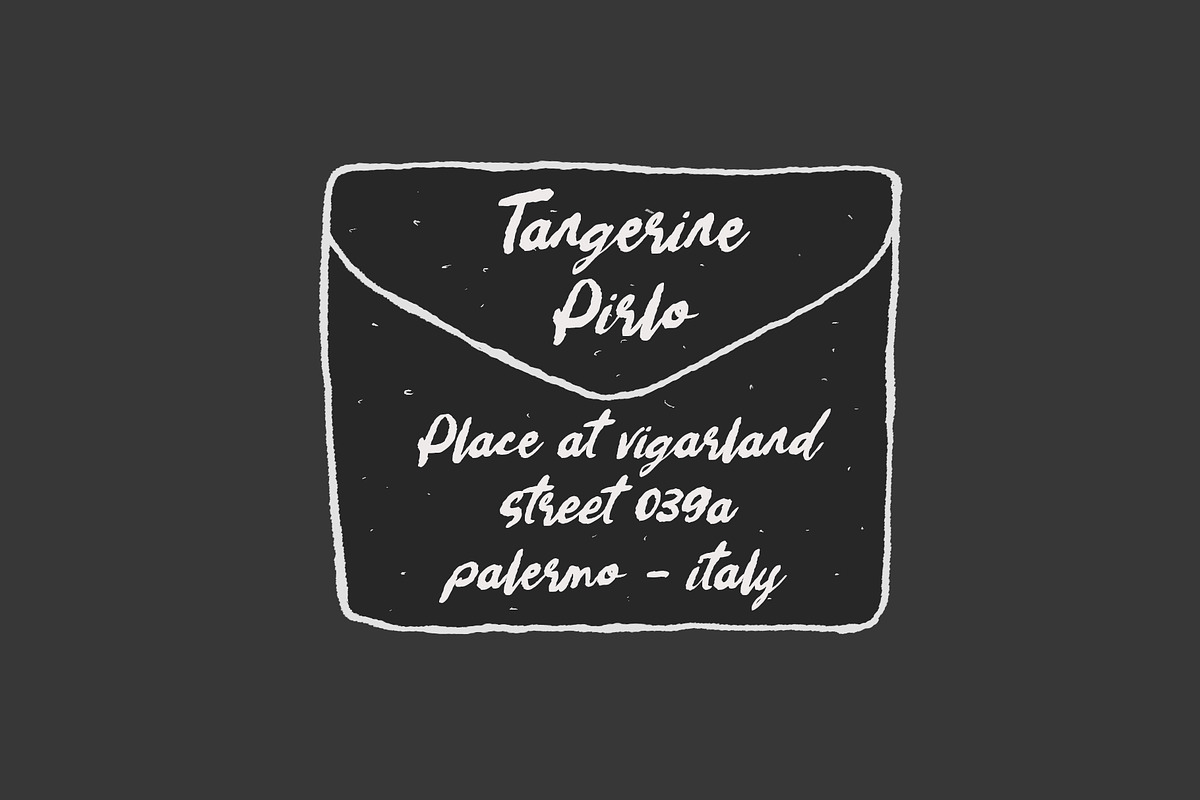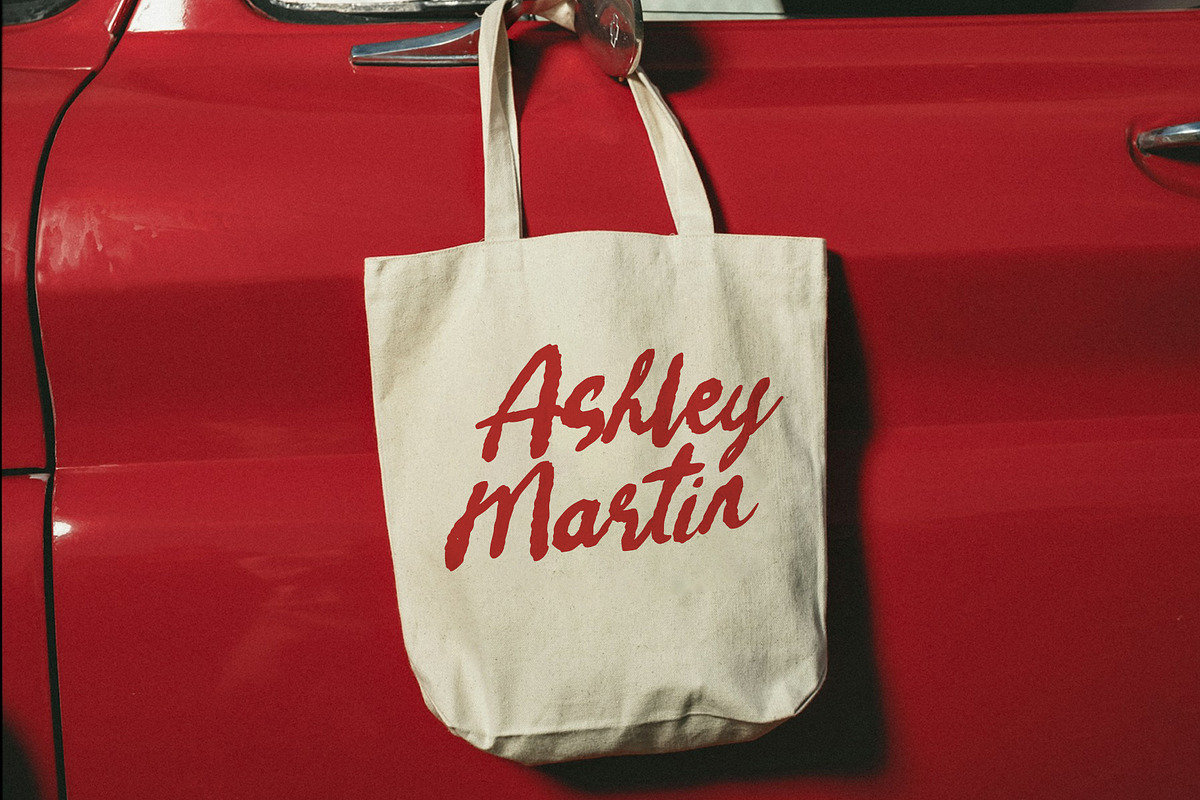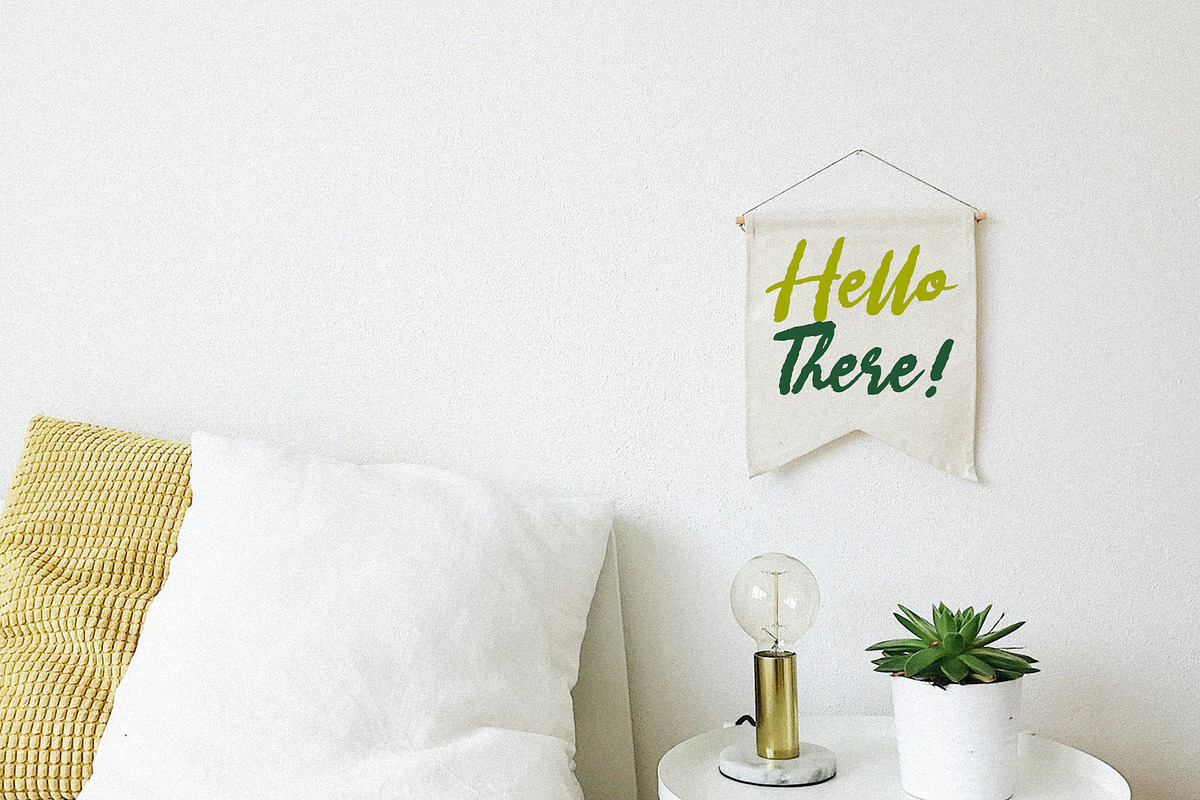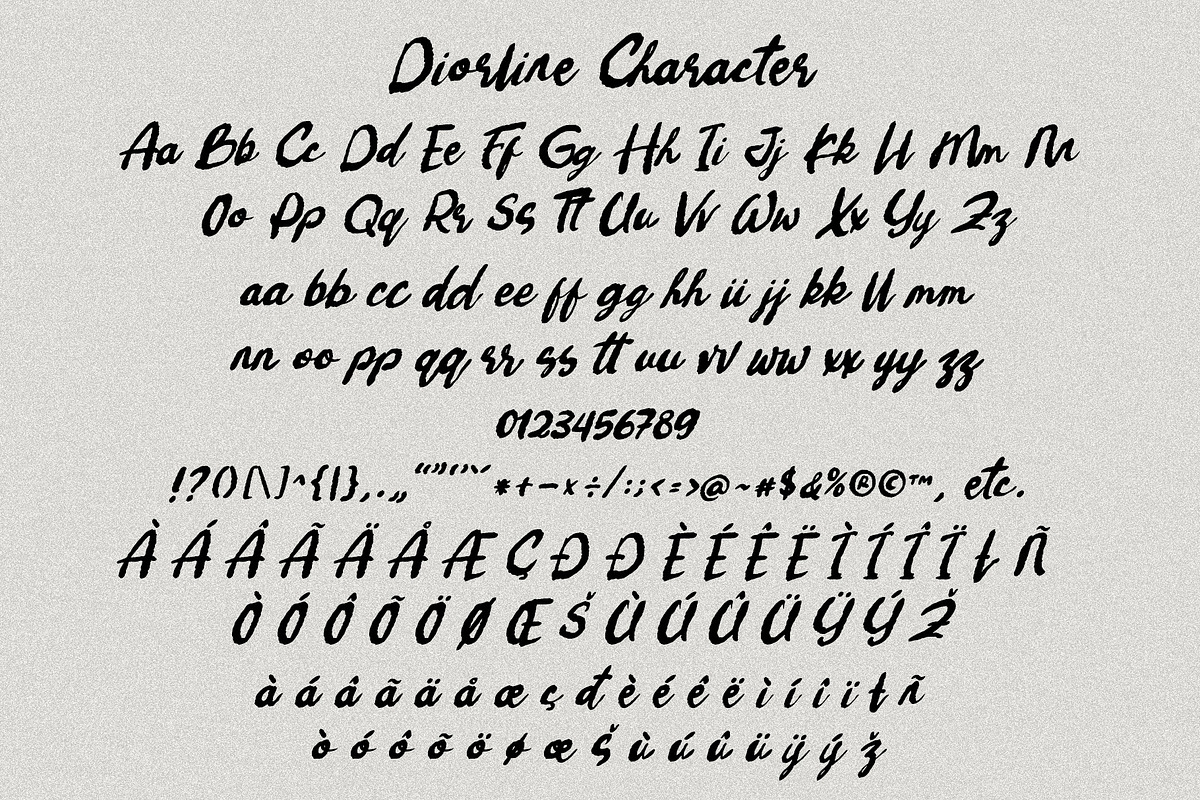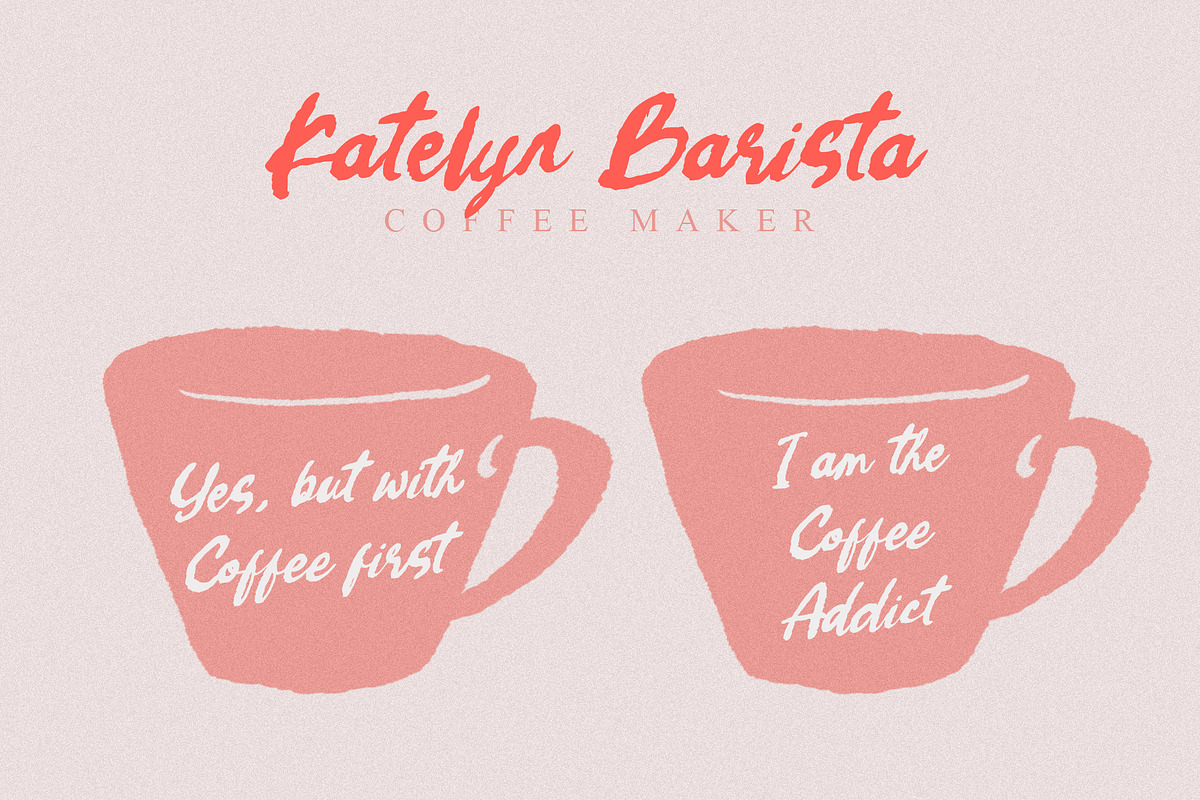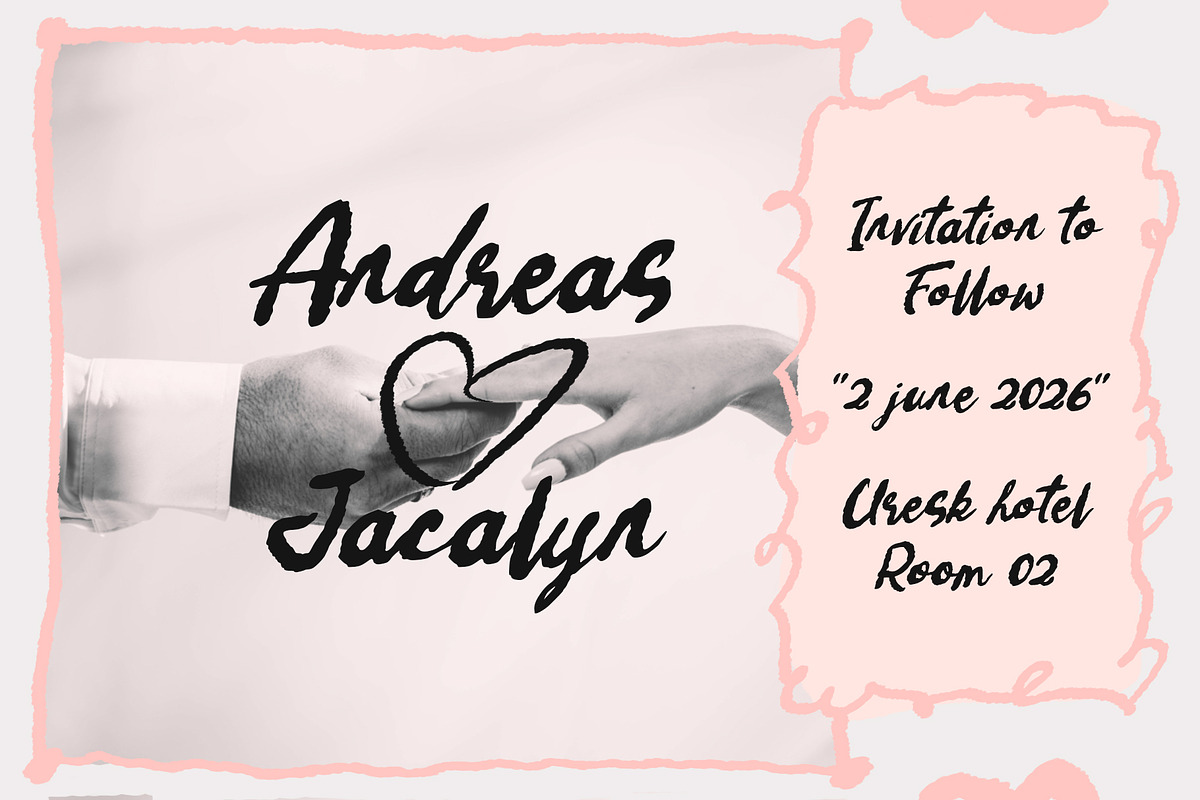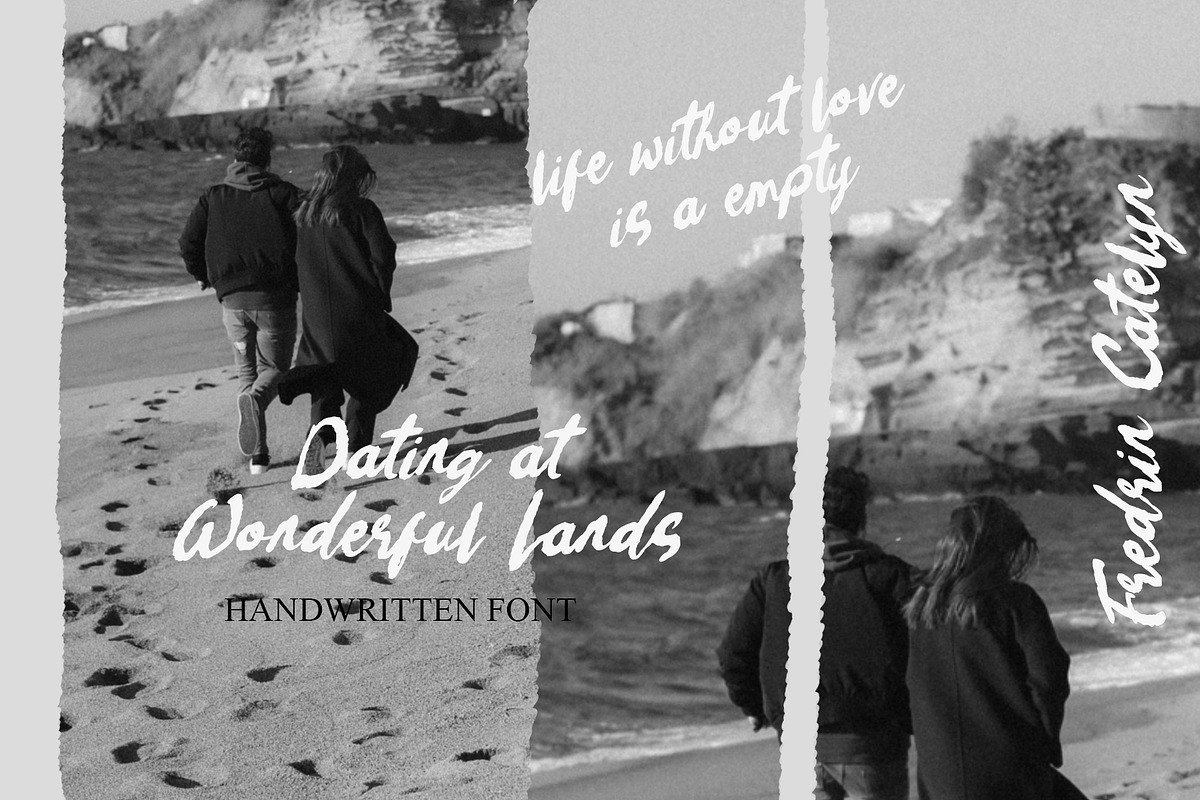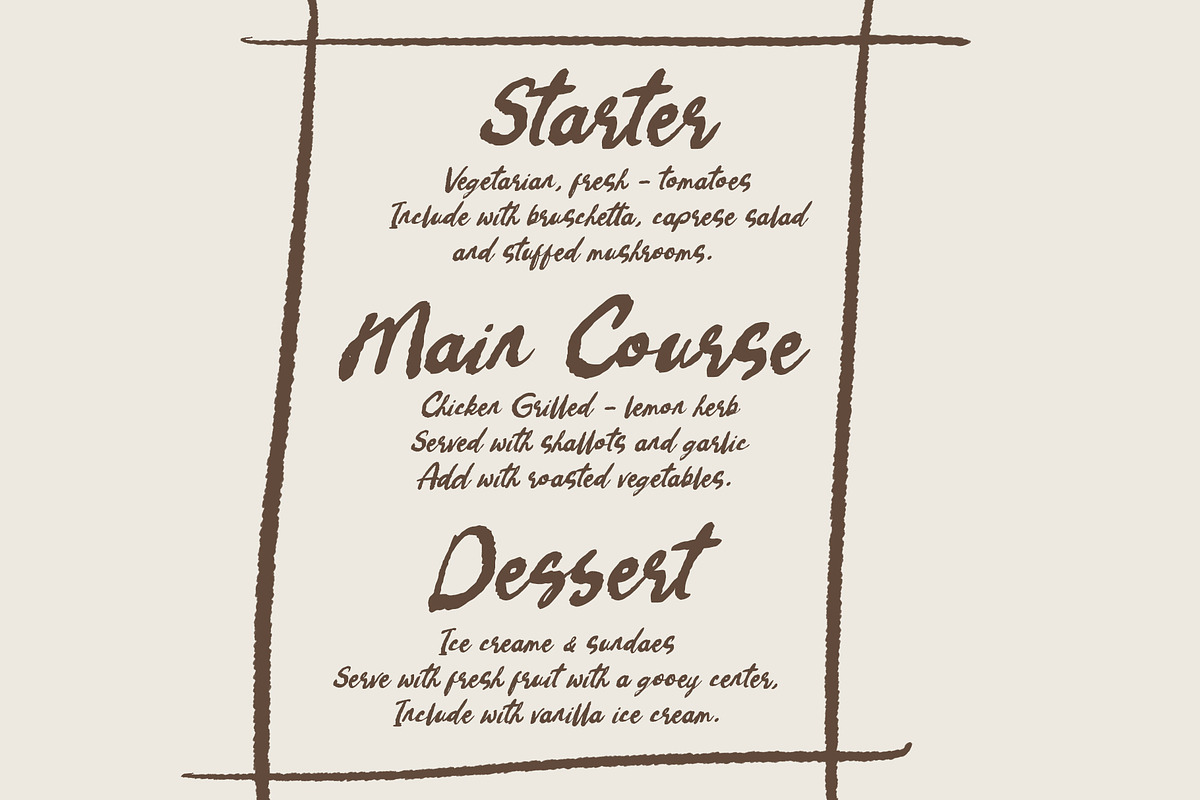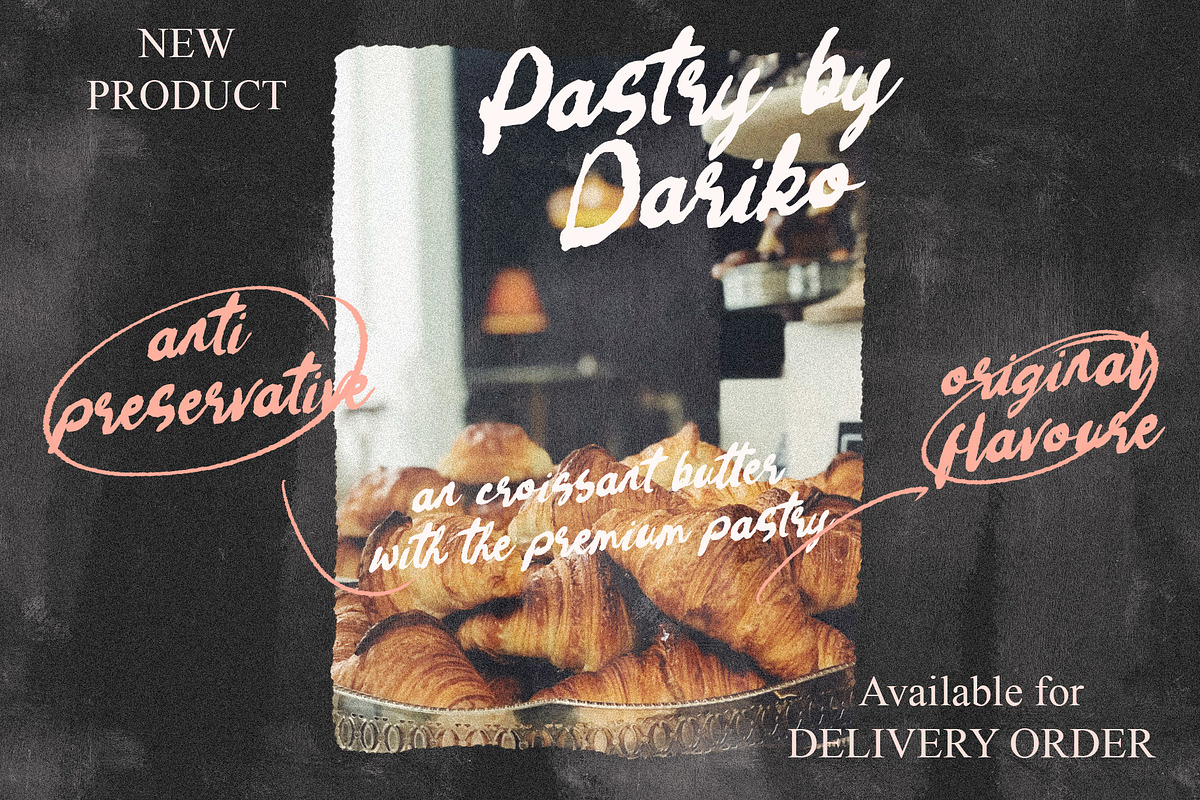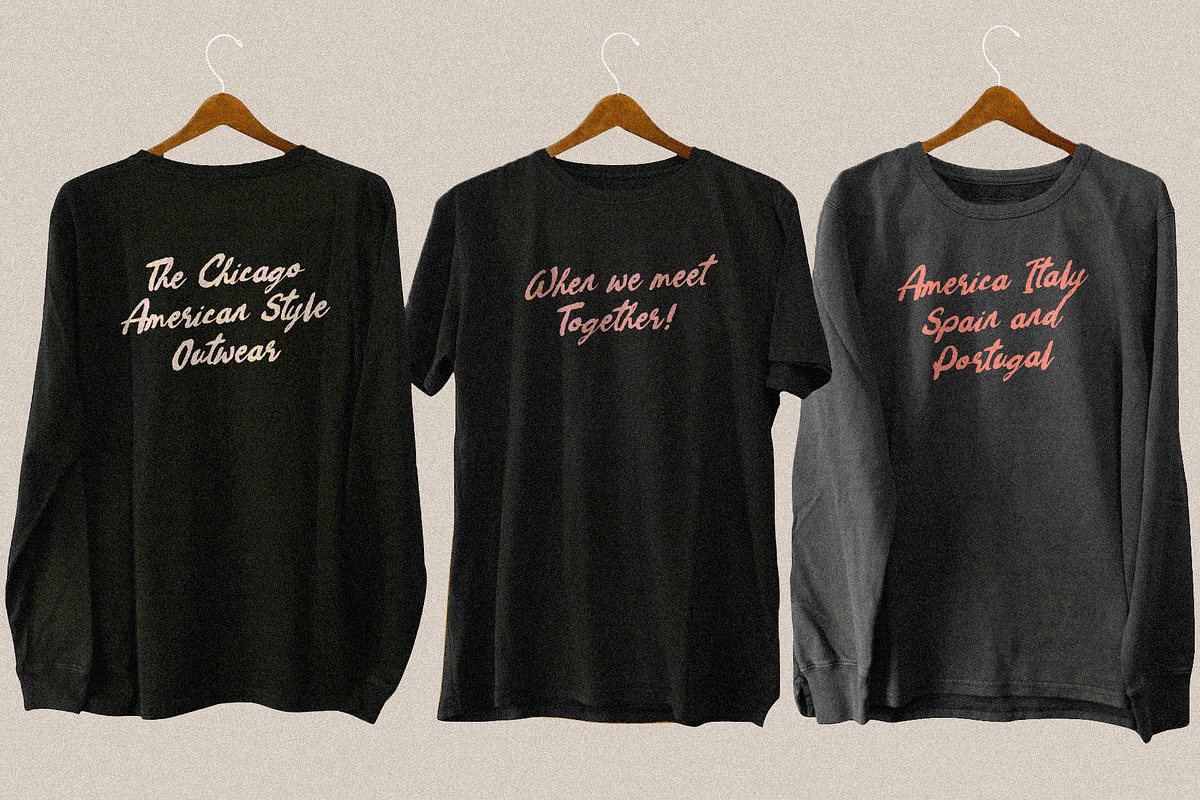
Diorline - Rough Handwritten Font
Diorline is a rough handwritten font that combines raw, textured charm with clear and legible readability. Each letter feels like a natural human touch, a little messy, and full of personality, but easy to read. It’s the perfect mix of imperfect charm and bold clarity, bringing a nostalgic, artistic, and expressive vibe to your any design project.
Ideal for posters, wedding desing, branding, calligraphy logos, display product, invitation design, apparel, packaging, social media, or anywhere you want to add a human touch, Diorline font turns ordinary text into something playful and memorable. With its organic texture and spirited energy, this font invites creativity, encouraging your project to stand out more with bold, handcrafted style.